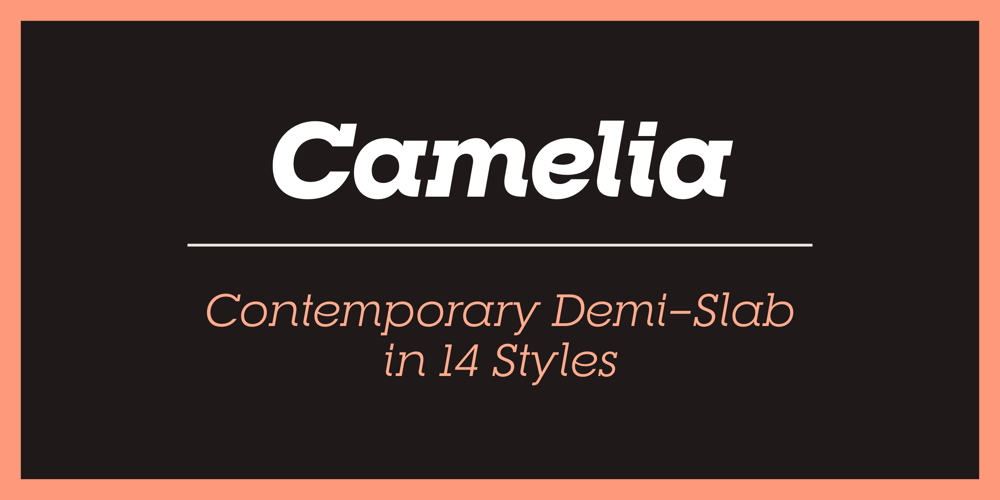
RNS Camelia Font Family was designed by Yorlmar Campos and published by RNS Fonts. RNS Camelia contains 14 styles and family package options. Camelia is an demi–slab display type family with reversed strokes to achieve an unexpected look and rythm. Was designed and optimized for use in large sizes. It is inspired by the geometric typefaces of the 1920s and the egyptiennes of the 1930s. An emphasis on circular and rectangular shape give it the identity.